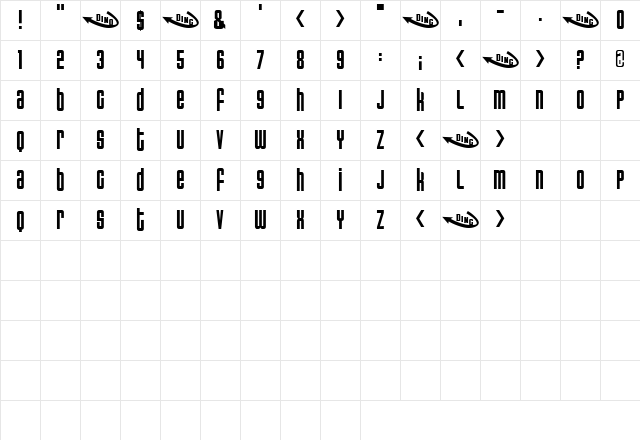
Photoplay Regular Font Preview
Photoplay Regular
Design Context for Photoplay Typeface
Photoplay offers clean, dependable letterforms without strong stylistic allegiance, making it a practical choice for designers who need flexibility.
Pro Tip: Use Photoplay in both headline and body roles to test its range before committing to a single application.